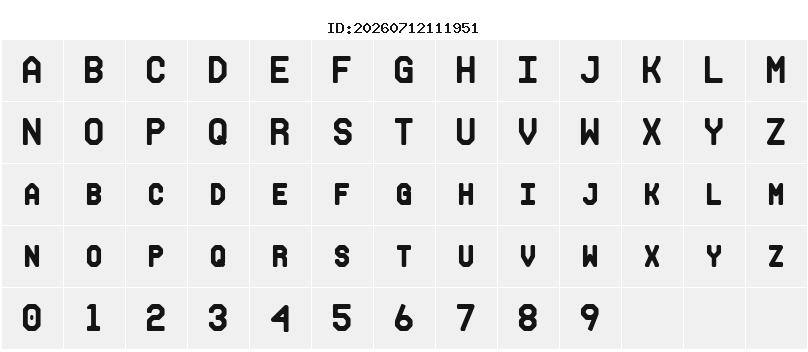
• Font Name: Makisupa
• Full Font Name: Makisupa
About Makisupa.ttf
Makisupa.ttf is a modern, elegant sans-serif font designed for ultimate readability and visual harmony. Perfect for branding, headlines, web design, and print materials.